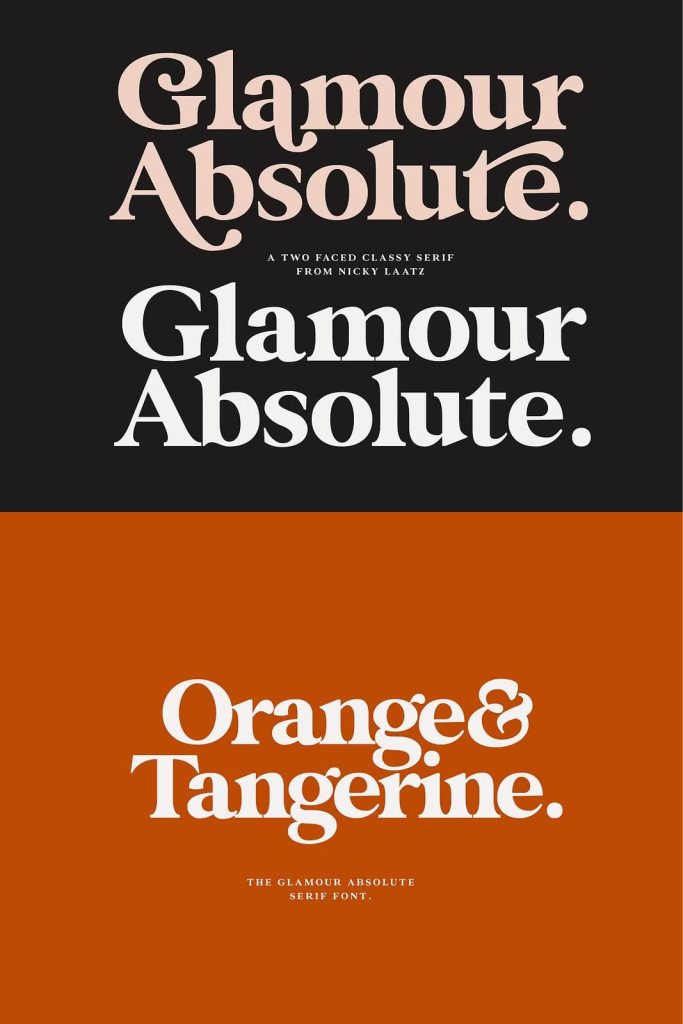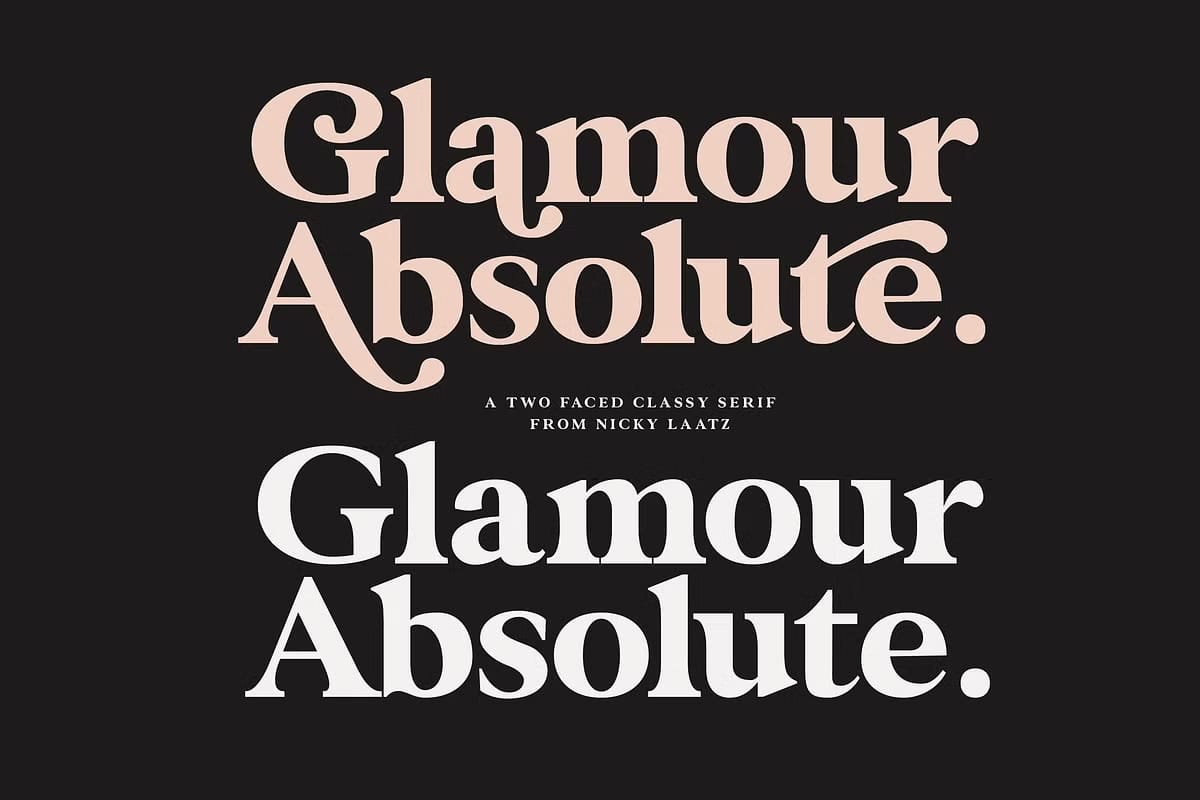
Glamour Absolute Font: A Bold Serif with Modern and Vintage Charm
Glamour Absolute Font is a stunning typeface that beautifully merges bold confidence with timeless elegance. Designed as a “two-faced” serif, it masterfully combines both modern and vintage aesthetics in one striking design. Every letterform reflects a perfect balance between sharp precision and graceful curves, making it the ideal choice for projects that demand sophistication and style. Whether you’re crafting a luxury brand, a high-end editorial spread, or a captivating advertisement, Glamour Absolute delivers the visual impact you need to leave a lasting impression.
Where Modern Precision Meets Vintage Beauty
The Glamour Absolute Font was created to capture the best of two worlds: the refinement of contemporary typography and the timeless allure of vintage serif design. Its bold, high-contrast strokes evoke the spirit of 1970s editorial headlines, while its sleek modern details bring it firmly into today’s design landscape. This combination creates a versatile typeface that feels both nostalgic and current—a rare quality that allows it to fit seamlessly into a wide range of design applications.
The modern side of Glamour Absolute emphasizes clarity, structure, and confident lines, ideal for minimalist branding or digital media. Meanwhile, its vintage-inspired curves introduce warmth, charm, and a handcrafted feel, perfect for fashion, lifestyle, or artistic projects. Together, these elements make Glamour Absolute an exceptional font that adapts to your creative vision effortlessly.
Bold Design for Strong Visual Presence
Every curve and serif in Glamour Absolute Font has been designed with precision to ensure powerful visual performance. The bold weight and strong contrast between thick and thin strokes make it a natural choice for display use. Headlines, logos, posters, and magazine covers instantly gain sophistication and presence when set in this font. Its sculptural details and crisp shapes also maintain readability, even at larger sizes, allowing designers to make a statement without sacrificing legibility.
When paired with clean sans-serifs or minimal layouts, Glamour Absolute shines even more—creating dynamic contrasts that draw the viewer’s eye. It’s perfect for designers who want to combine bold typography with refined luxury.
Versatility Across Styles and Applications
The beauty of Glamour Absolute Font lies in its versatility. Its two-faced personality makes it adaptable to a wide range of creative contexts. Whether you’re aiming for a retro-inspired editorial design or a modern luxury brand identity, this typeface offers the flexibility to meet your needs.
Some of the most popular uses for Glamour Absolute include:
- Luxury branding and logo design
- High-end fashion magazines and editorials
- Packaging for cosmetics, fragrances, and premium goods
- Website headers, social media graphics, and digital campaigns
- Posters, invitations, and artistic prints
Its expressive letterforms bring elegance to every application, making it a valuable addition to any designer’s toolkit. The combination of vintage curves and modern geometry allows you to convey sophistication and strength with a single font.
Crafted for Designers Who Value Style and Substance
More than just a beautiful font, Glamour Absolute is a design tool that empowers creativity. Every element—from its bold serifs to its smooth curves—was crafted with intention, ensuring balance, consistency, and aesthetic harmony. The attention to detail in its design makes it ideal for professionals who want their typography to make a statement while maintaining a refined, polished tone.
Its high-quality structure ensures seamless rendering in both print and digital media, allowing designers to achieve consistent results across all platforms. Whether you’re working on a brand identity, editorial composition, or high-fashion campaign, Glamour Absolute gives your typography the confidence and clarity it deserves.
Conclusion: The Perfect Marriage of Modern and Vintage Design
Glamour Absolute Font stands out as a rare gem in the world of typography—bold yet graceful, modern yet timeless. Its dual nature offers designers the freedom to explore both contemporary and retro aesthetics within a single font family. With its elegant curves, confident strokes, and luxurious feel, it embodies the essence of high fashion and refined artistry.
Glamour Absolute Font – where modern elegance meets vintage sophistication. Perfect for designers who dare to make a statement with timeless style.